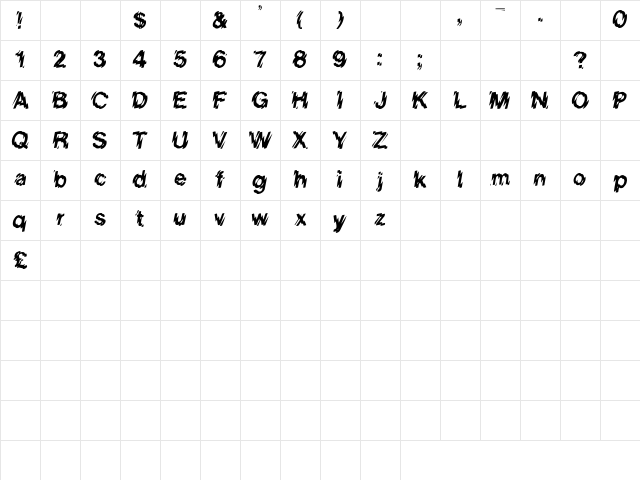
LowerWestSide Regular
Complete LowerWestSide Regular glyph index. Displaying only characters natively supported by LowerWestSide Regular font.
Design Context for LowerWestSide
LowerWestSide is a composed and adaptable typeface that performs quietly and consistently across a wide range of design contexts.